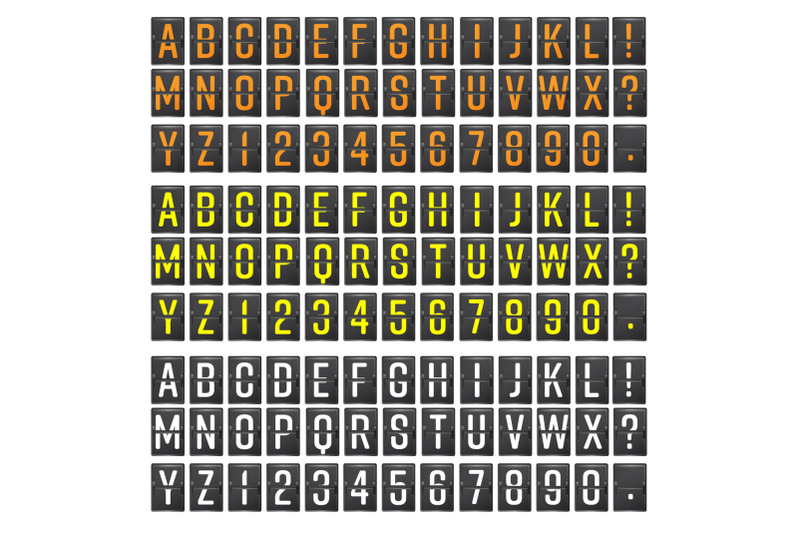
Airport Board Vector. Realistic flip scoreboard airport template. Black 3d airport board with alphabet and numbers. Analog airport board font on dark background. Destination airport board eps